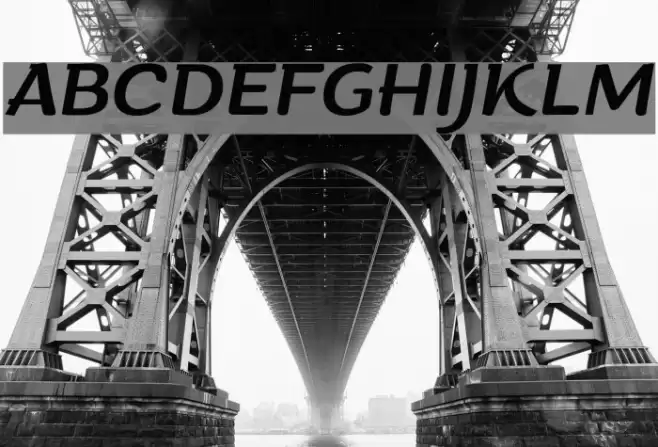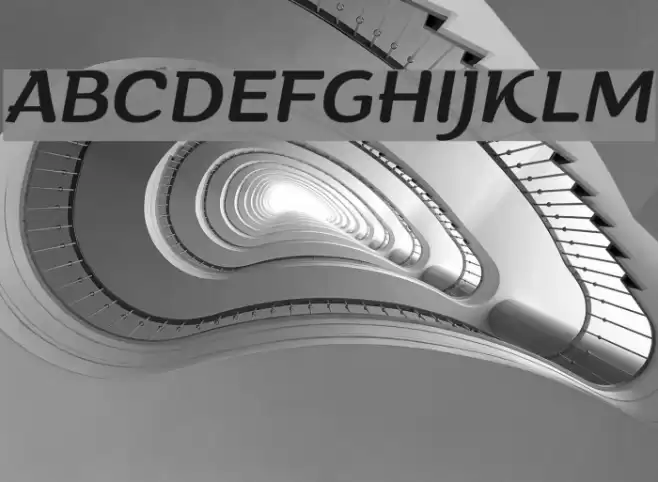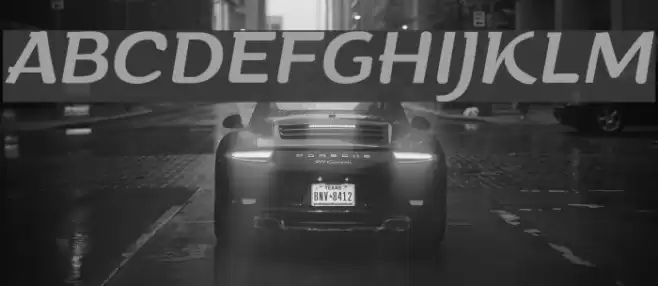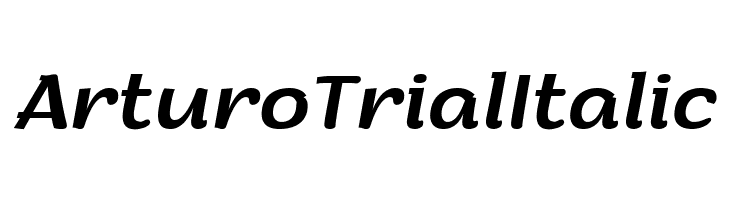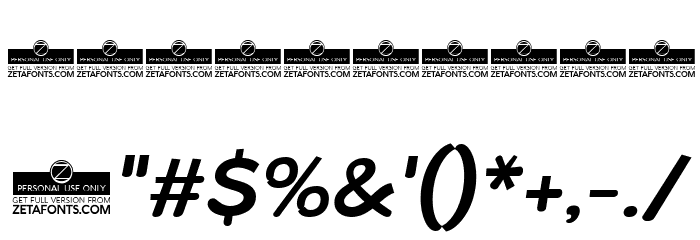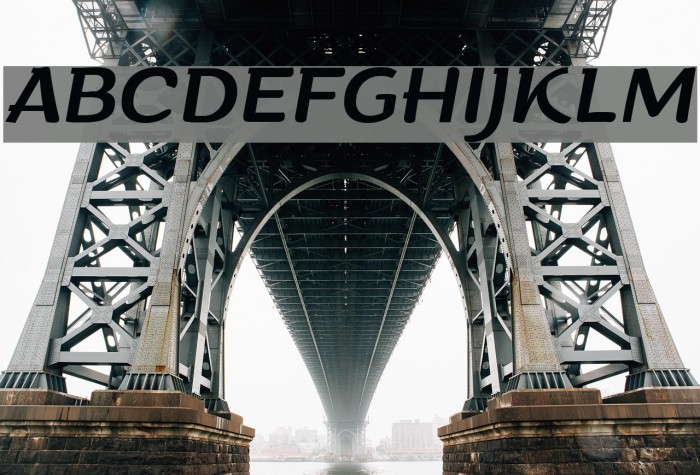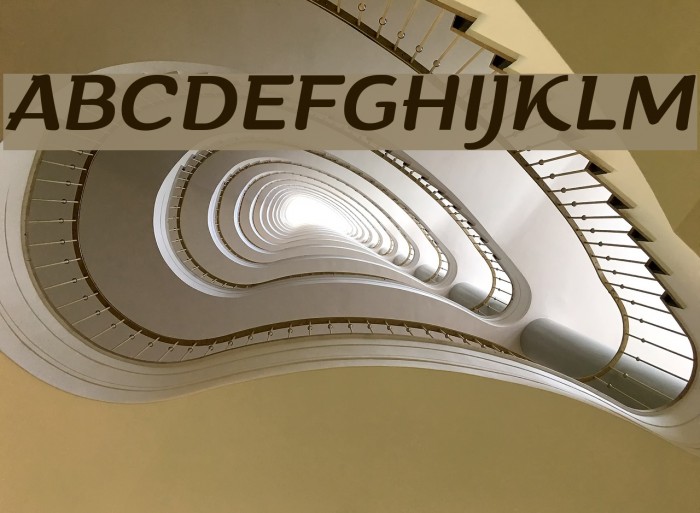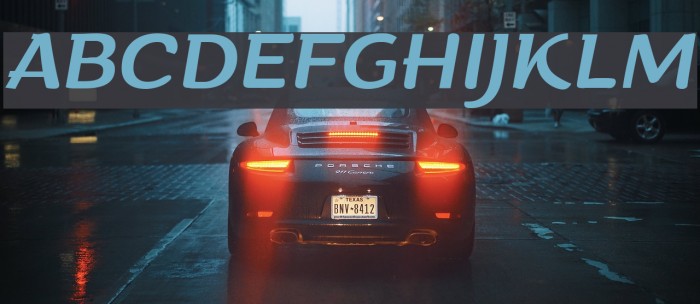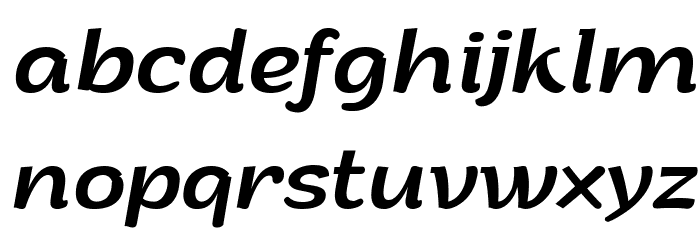
Arturo Trial Italic Font
Arturo Trial Italic Description
This font features a dynamic and elegant italic style, characterized by its smooth, flowing lines and slightly slanted orientation. The uppercase letters exhibit a strong presence with a slight forward lean, while the lowercase letters maintain a consistent rhythm and balance. The numerals are clear and legible, complementing the overall aesthetic. Special characters are thoughtfully designed, ensuring versatility in various applications. The font's design is modern yet timeless, making it suitable for a wide range of creative projects.
A dynamic italic font with smooth, flowing lines and a modern aesthetic from Uncategorized fonts.
- Proposed Projects: Ideal for branding, editorial design, advertising, and digital media projects where a touch of elegance and modernity is desired.